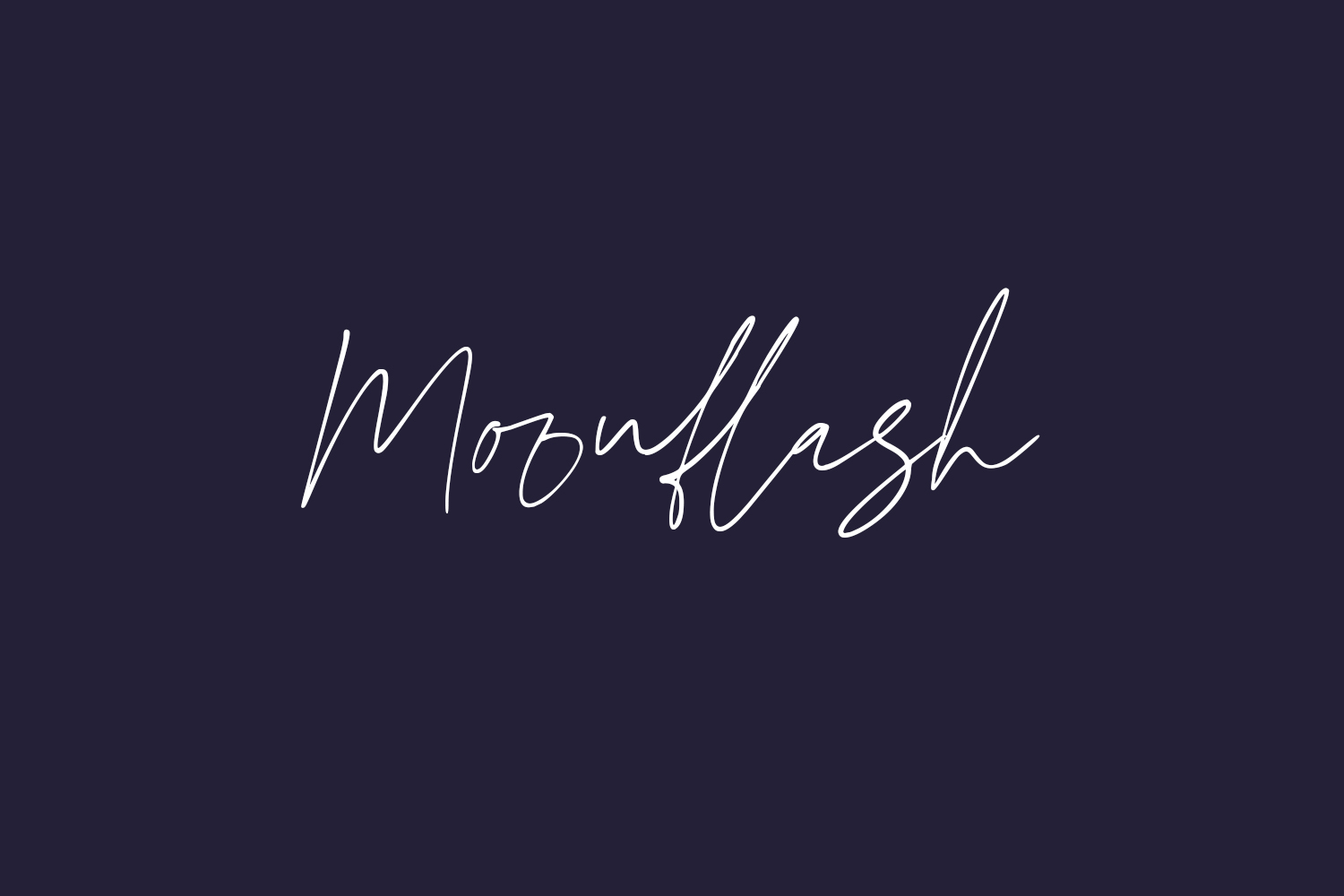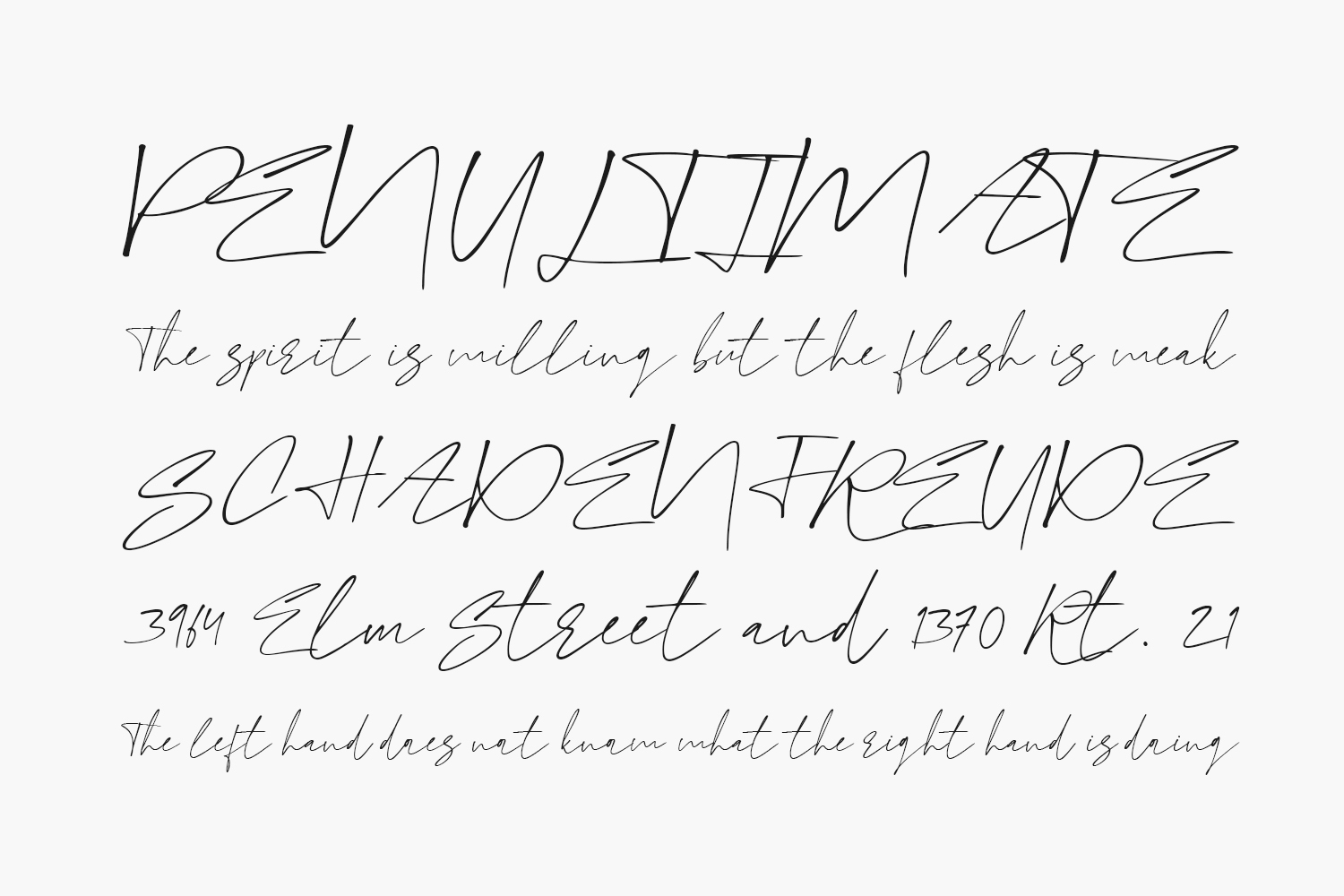
Moonflash Free Font is a new fashionable and super fancy handwritten script font with some extra sexy style. Moonflash Free Font is made to look as close to the natural handwritten script as possible with ligatures, and a full set of lowercase alternatives. Moonflash Free Font was designed by Faizal and is free for personal use only. Please purchase the full version for commercial use.